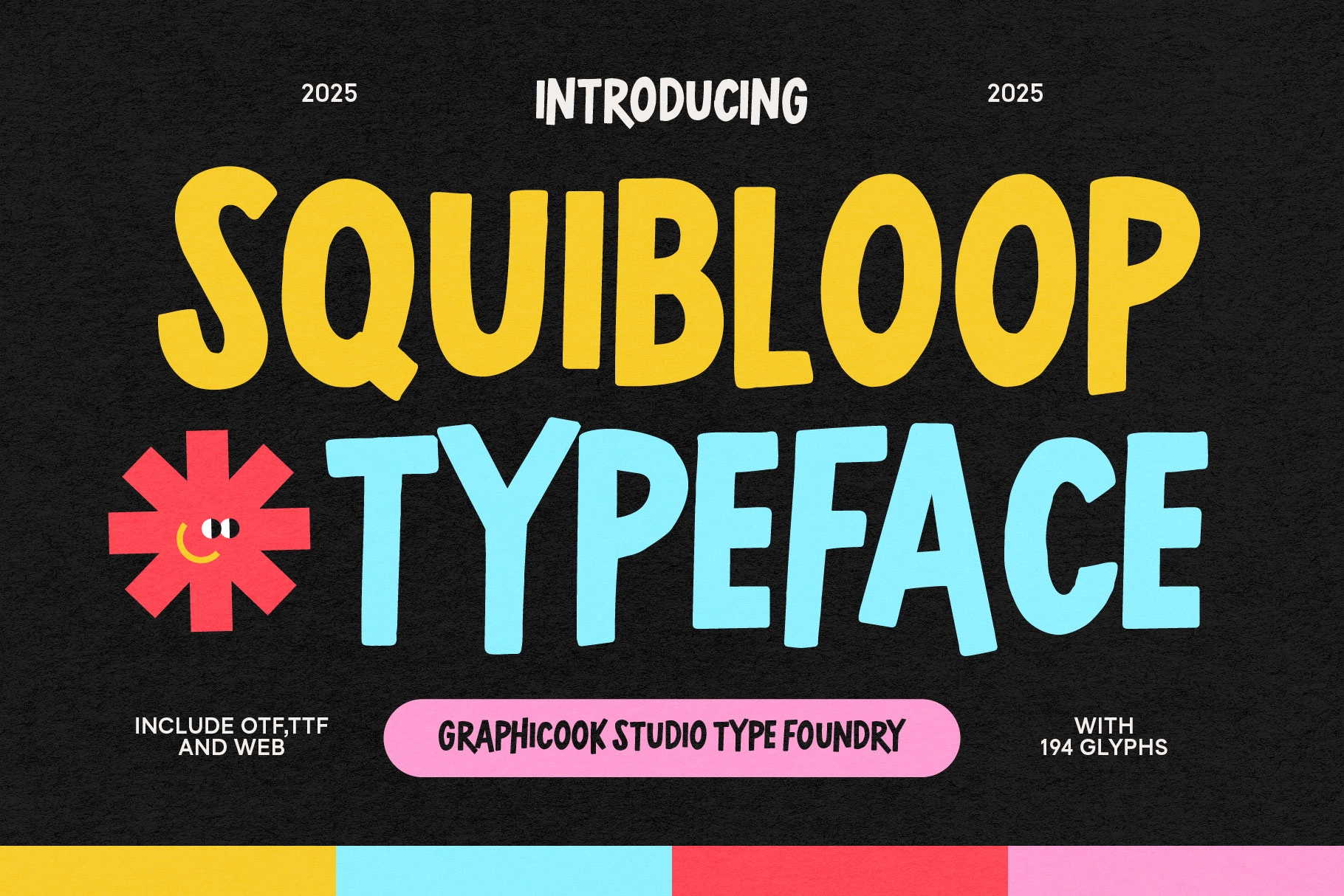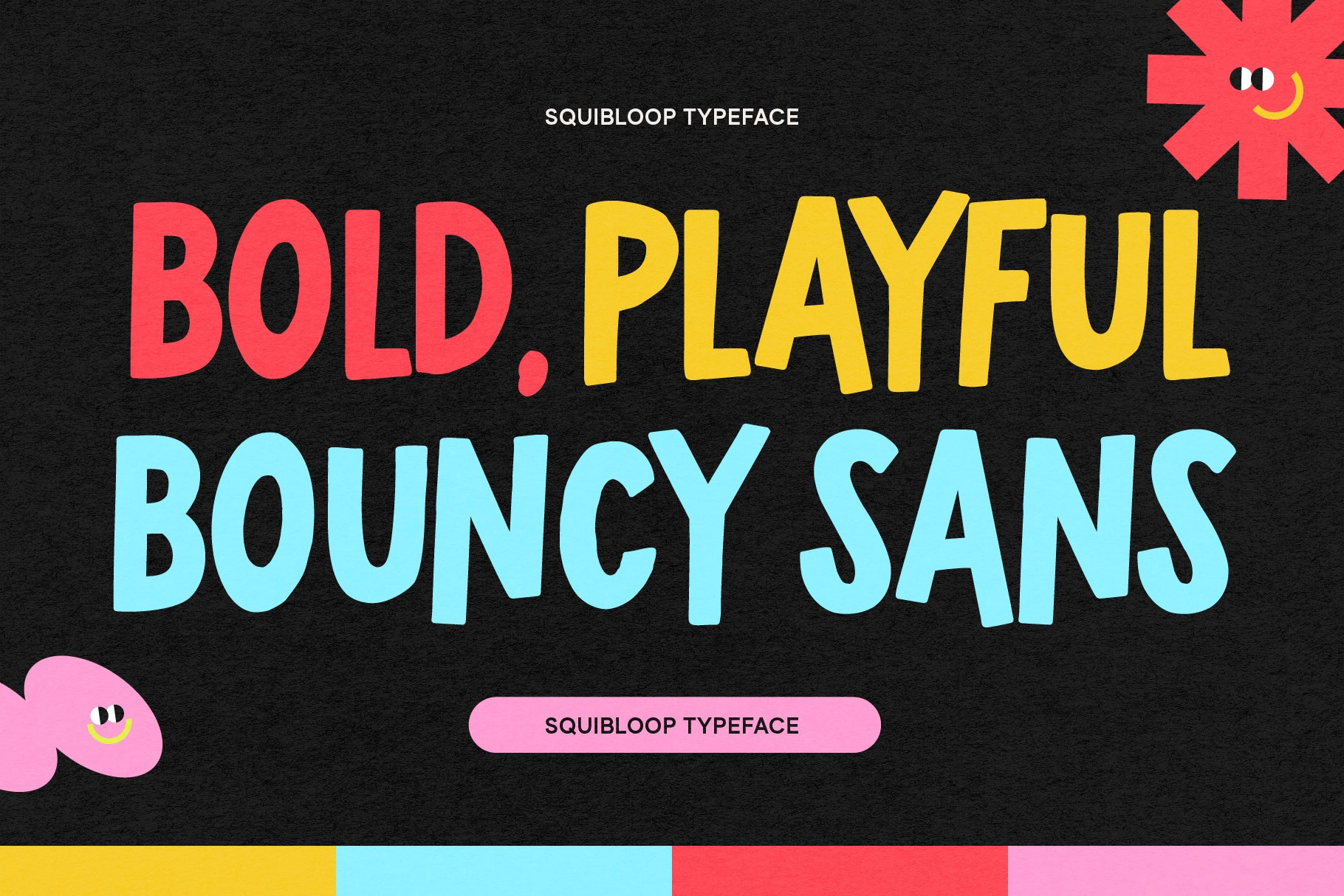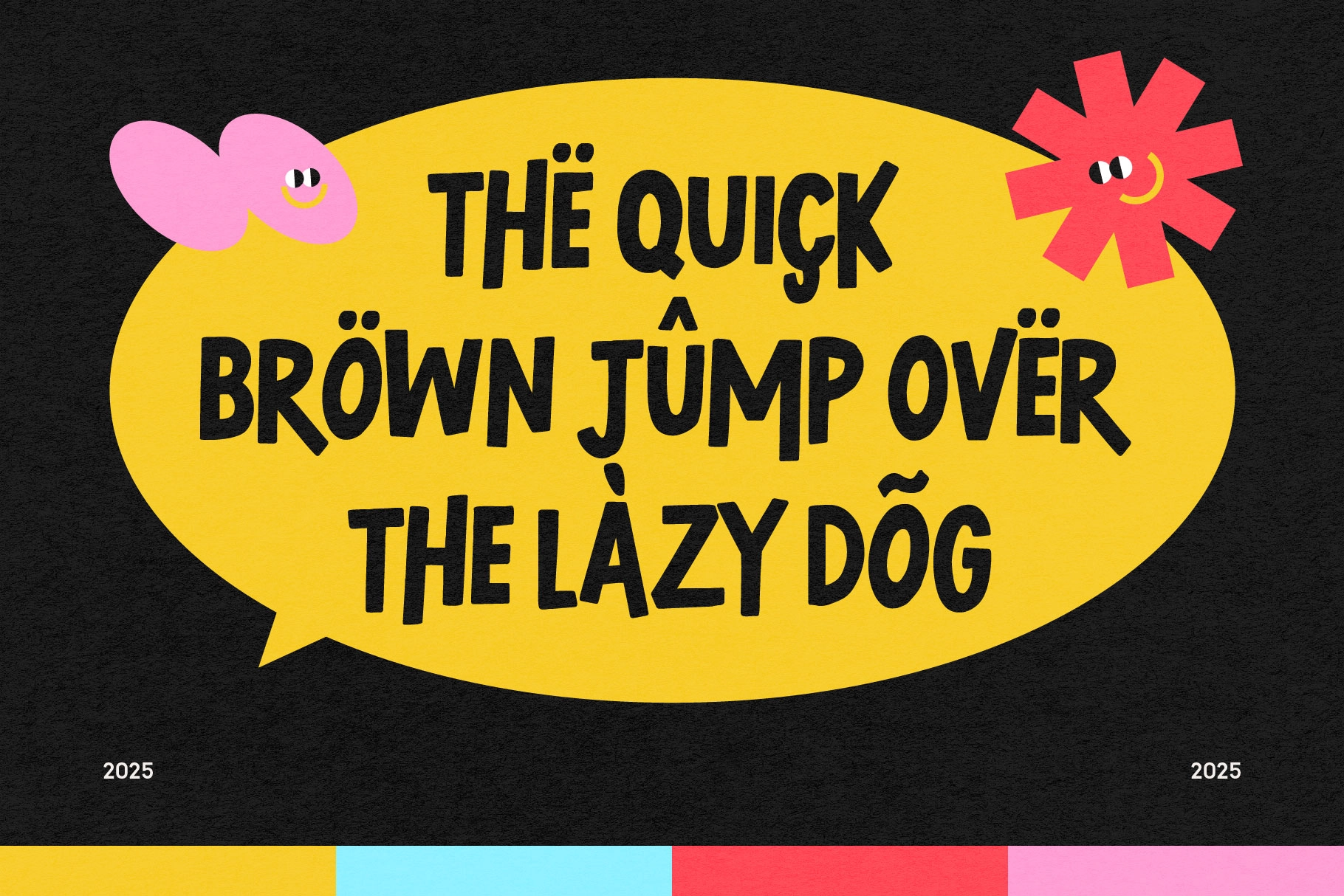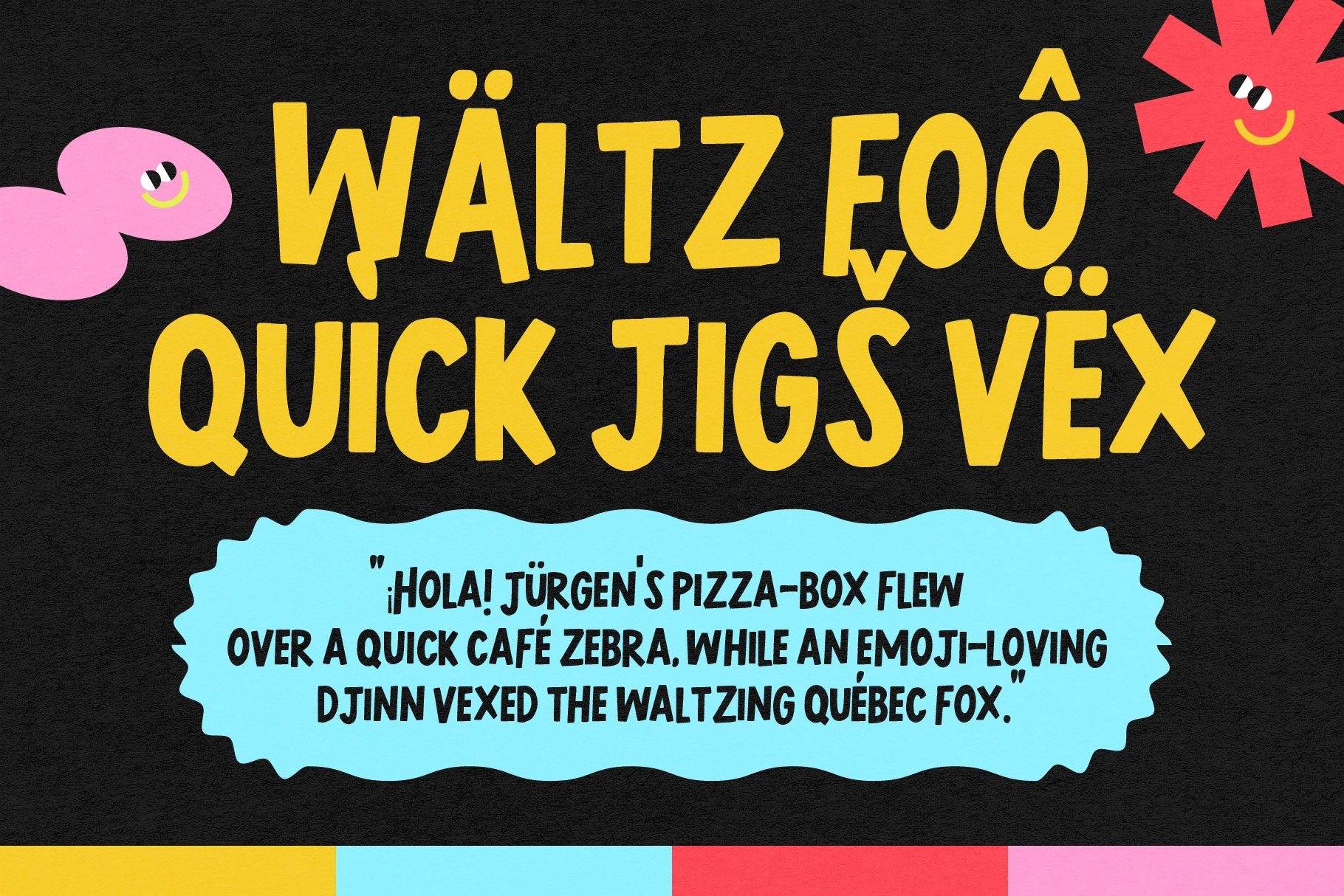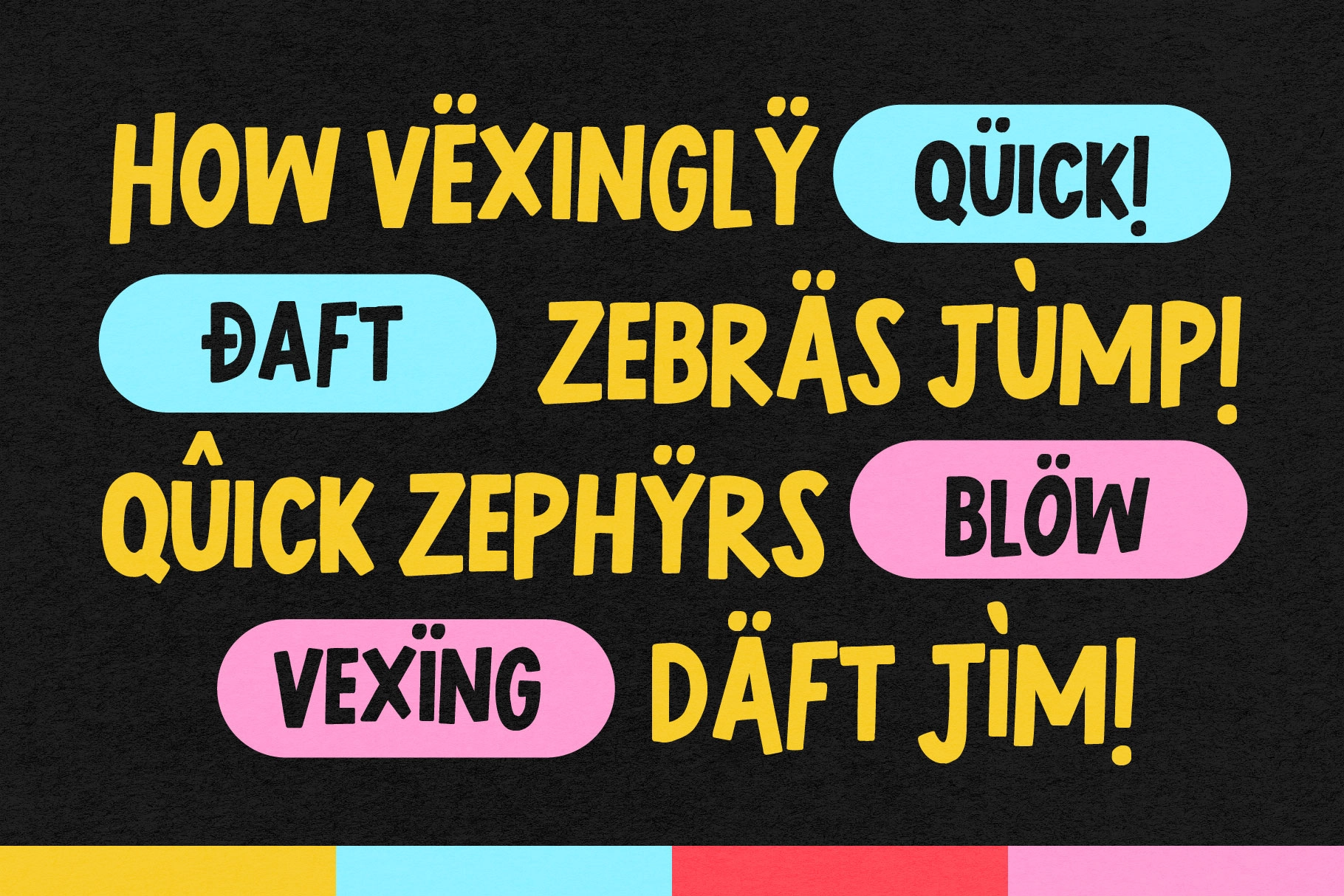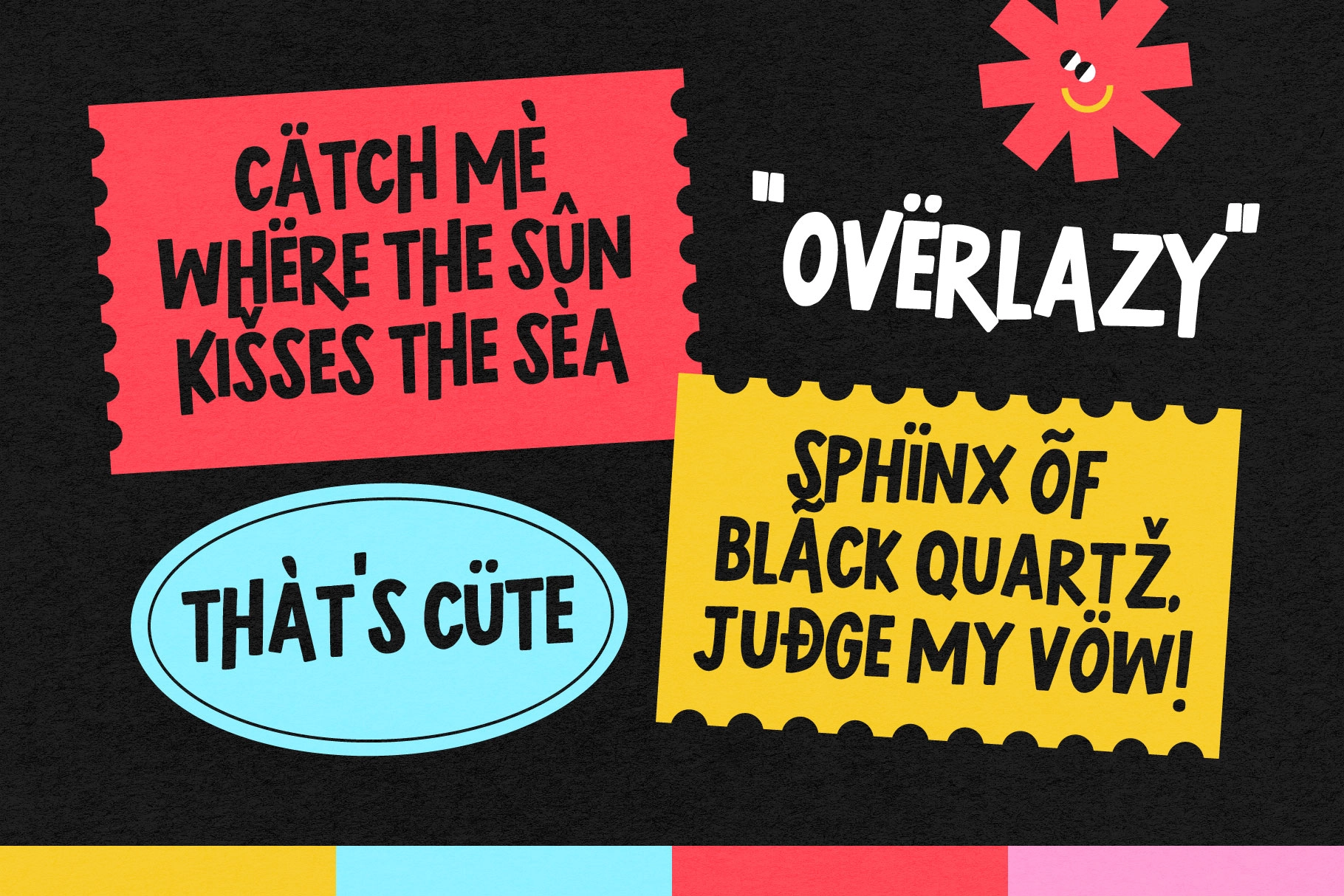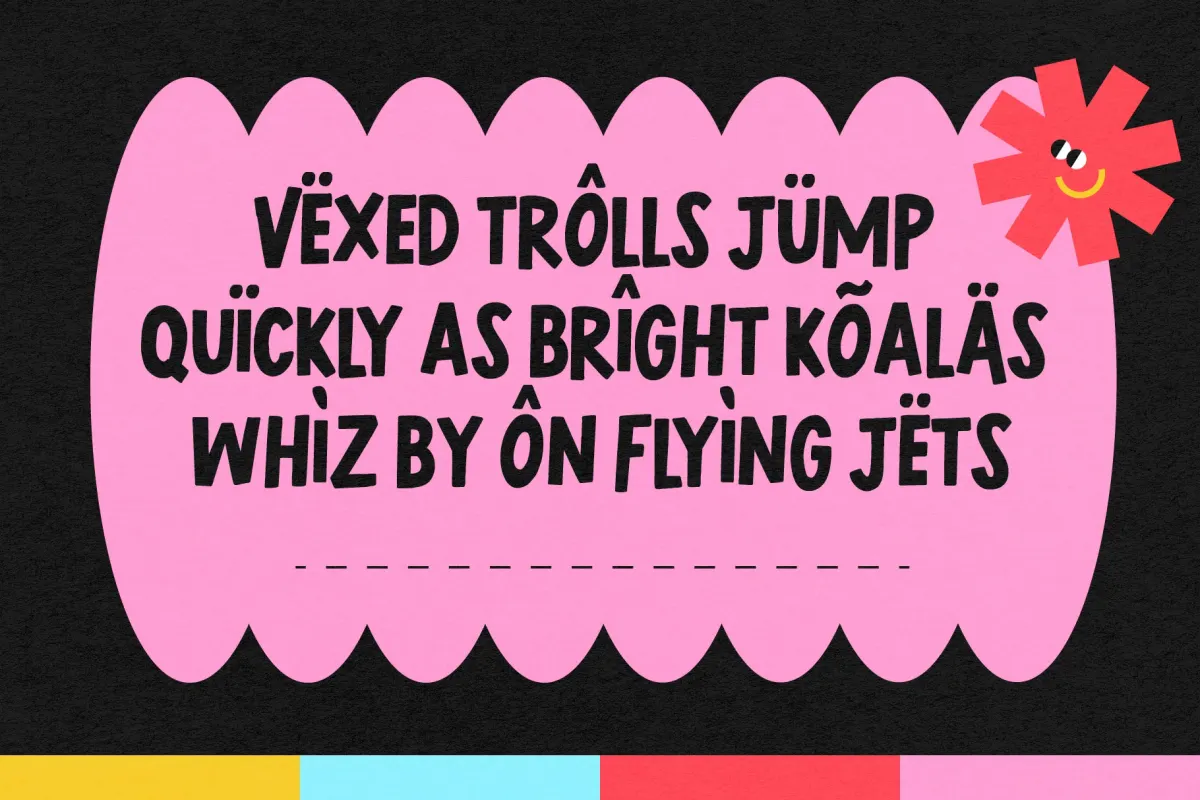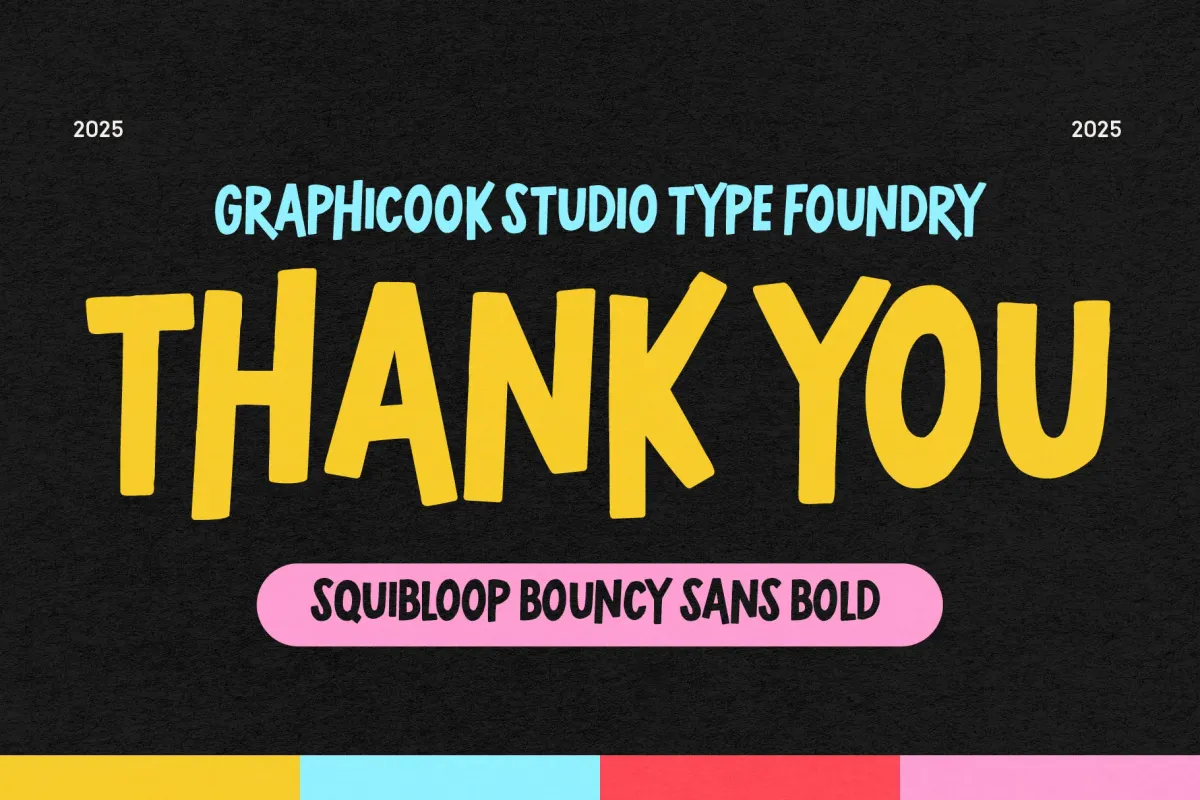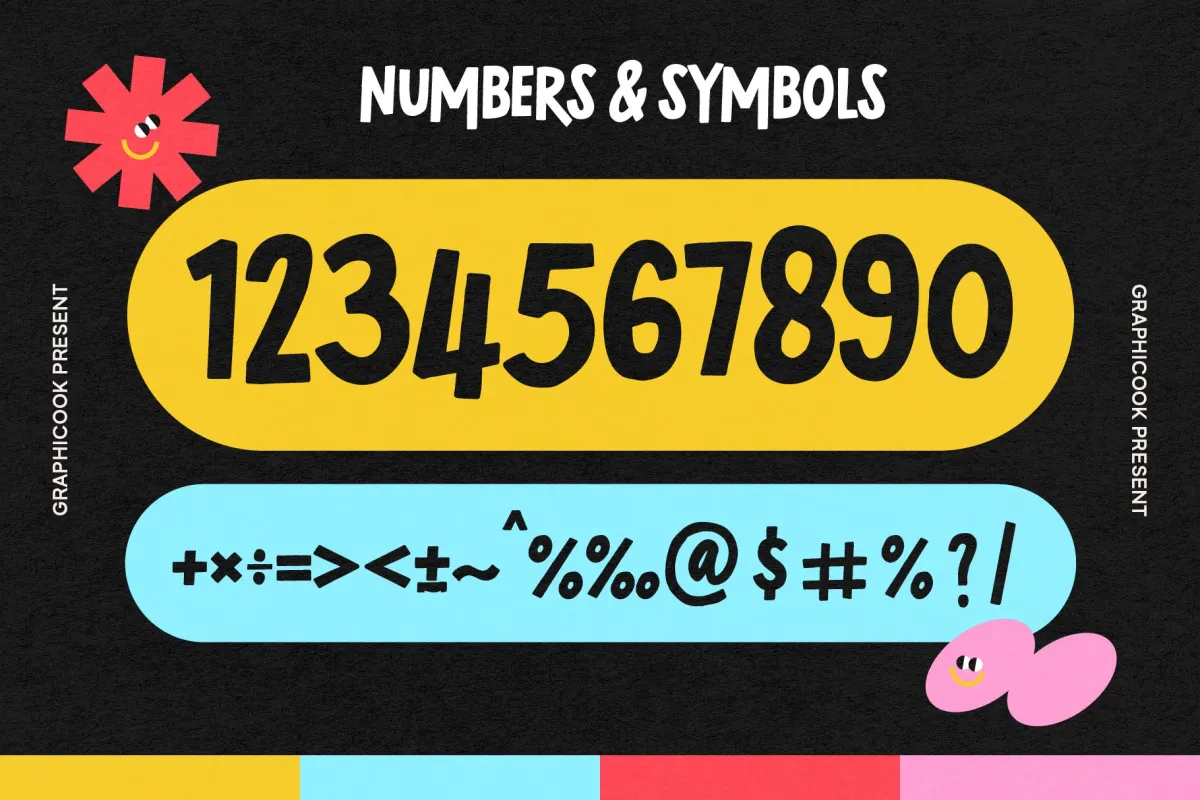
Squibloop Bouncy Sans Serif Font
Squibloop
Meet Squibloop — a bold, playful bouncy sans typeface with a hand-cut, slightly wobbly rhythm that instantly makes designs feel friendly and alive. The letterforms are chunky, confident, and imperfect in the best way, giving you that “crafted by hand” energy while staying super readable at display sizes.
It’s a great fit for kids branding, fun packaging, stickers, posters, social media, quirky headlines, merch, and any project that needs warmth, humor, and character without going full cartoon. Squibloop also plays nicely with bright color palettes and textured backgrounds, making it perfect for modern playful layouts.
- Uppercase + lowercase
- Numbers + punctuation/symbols
- 194 glyphs (including accented characters shown in the previews)